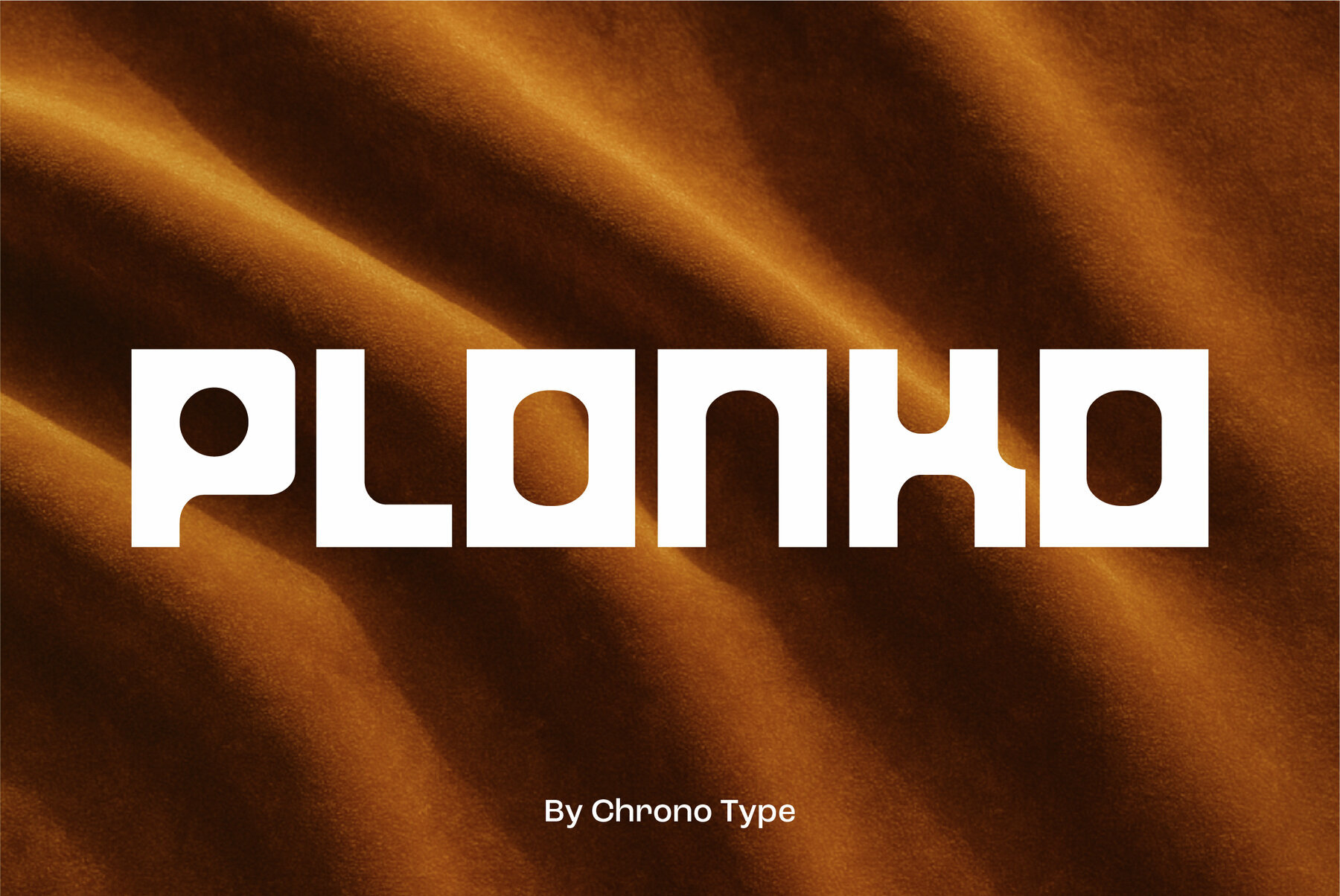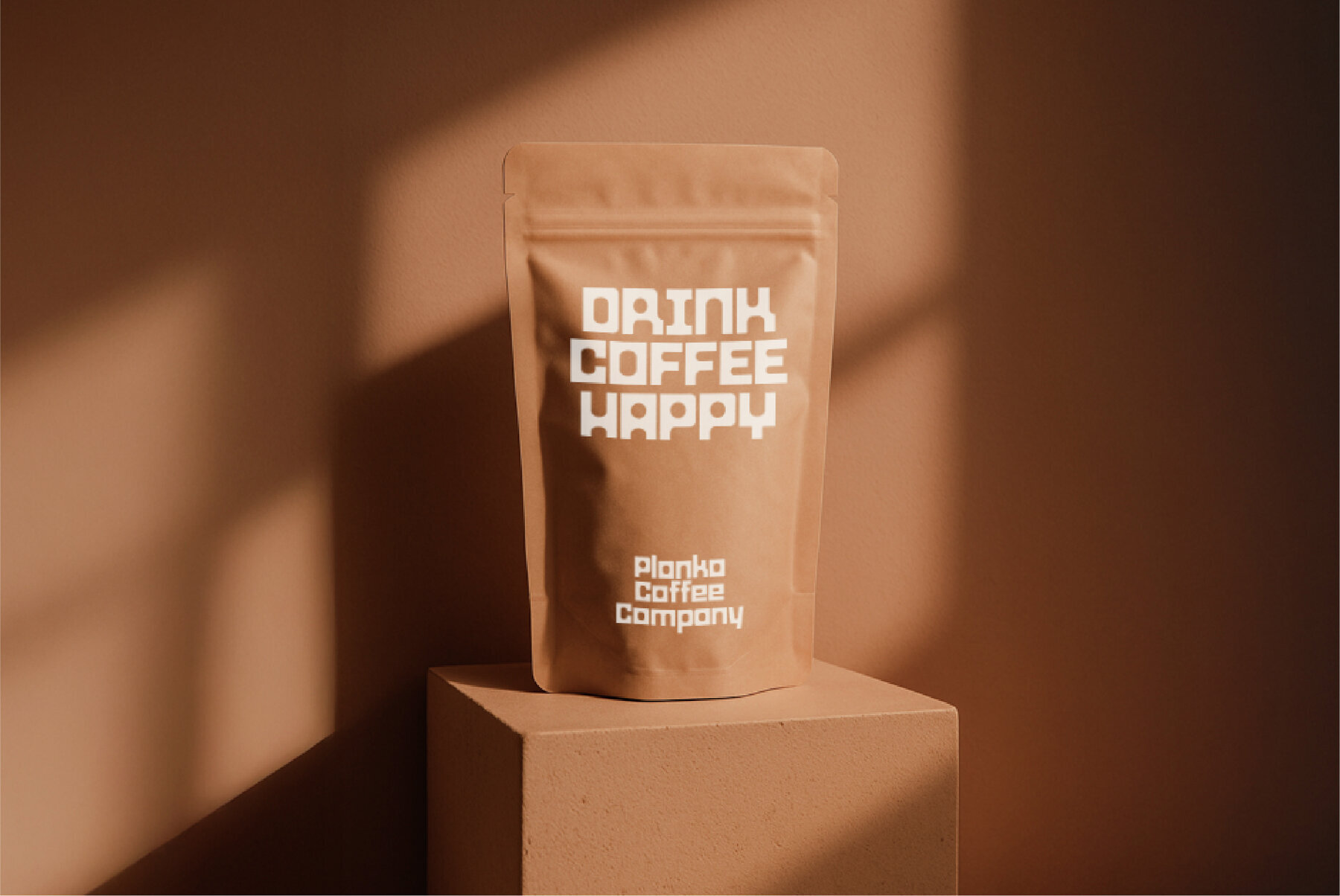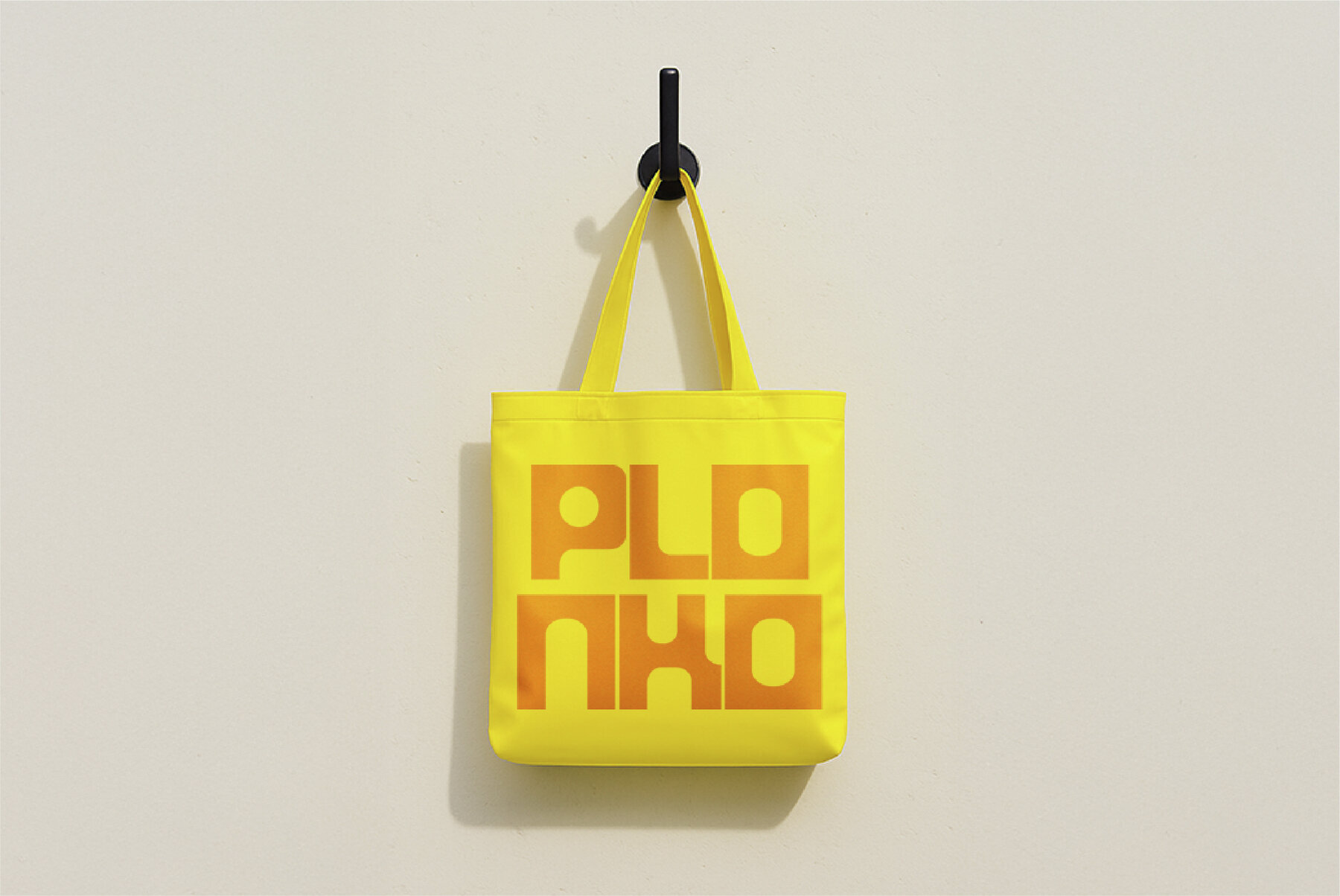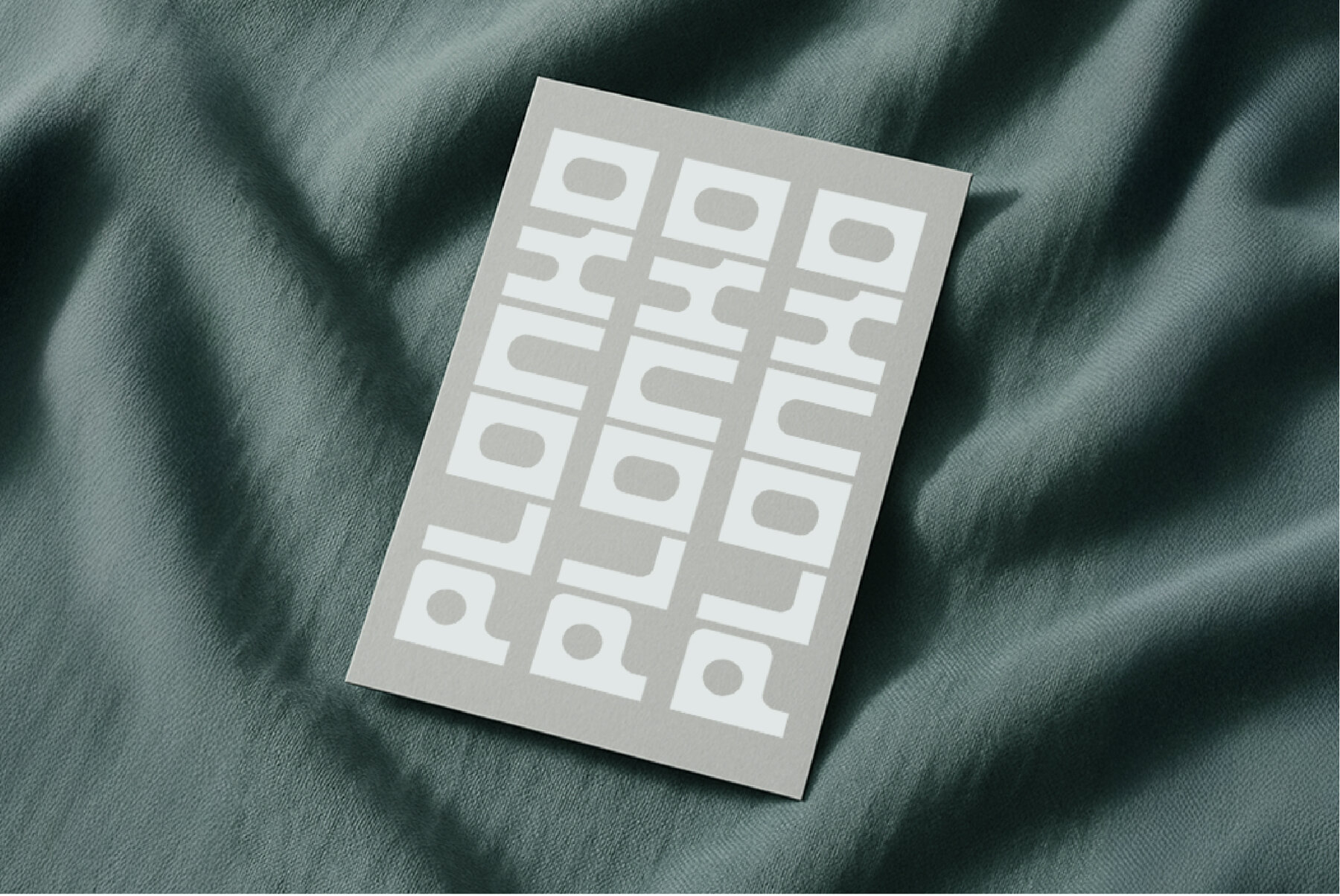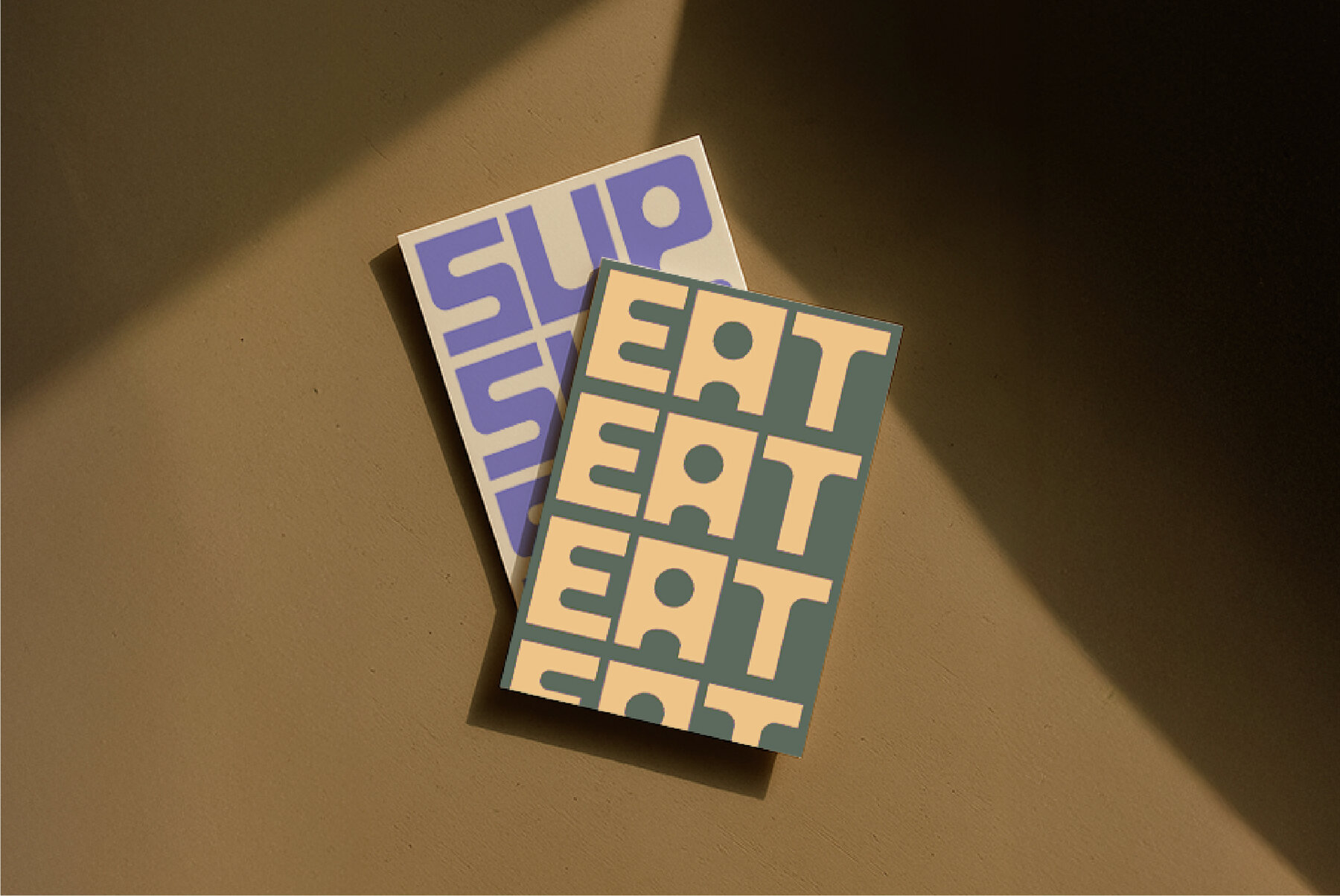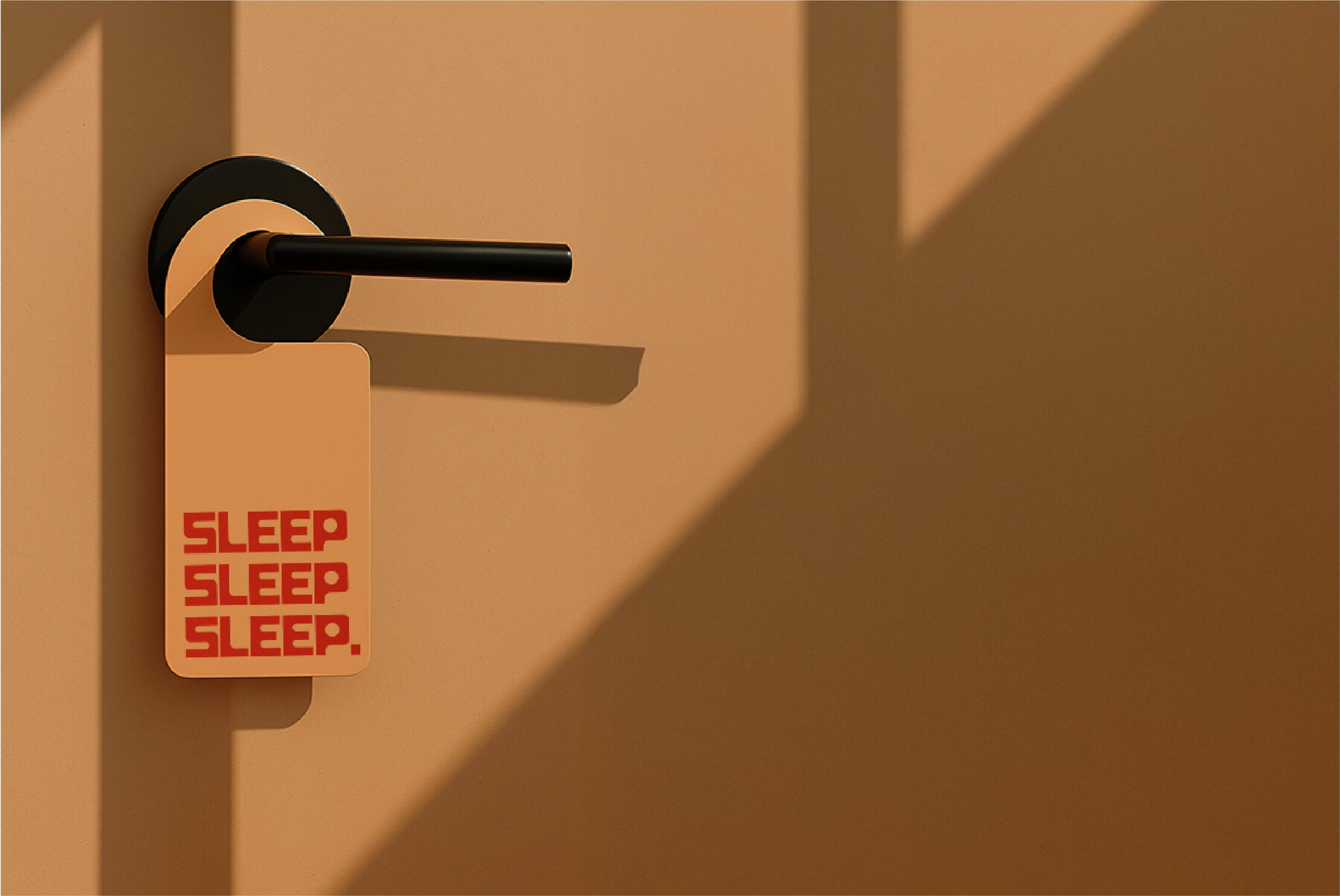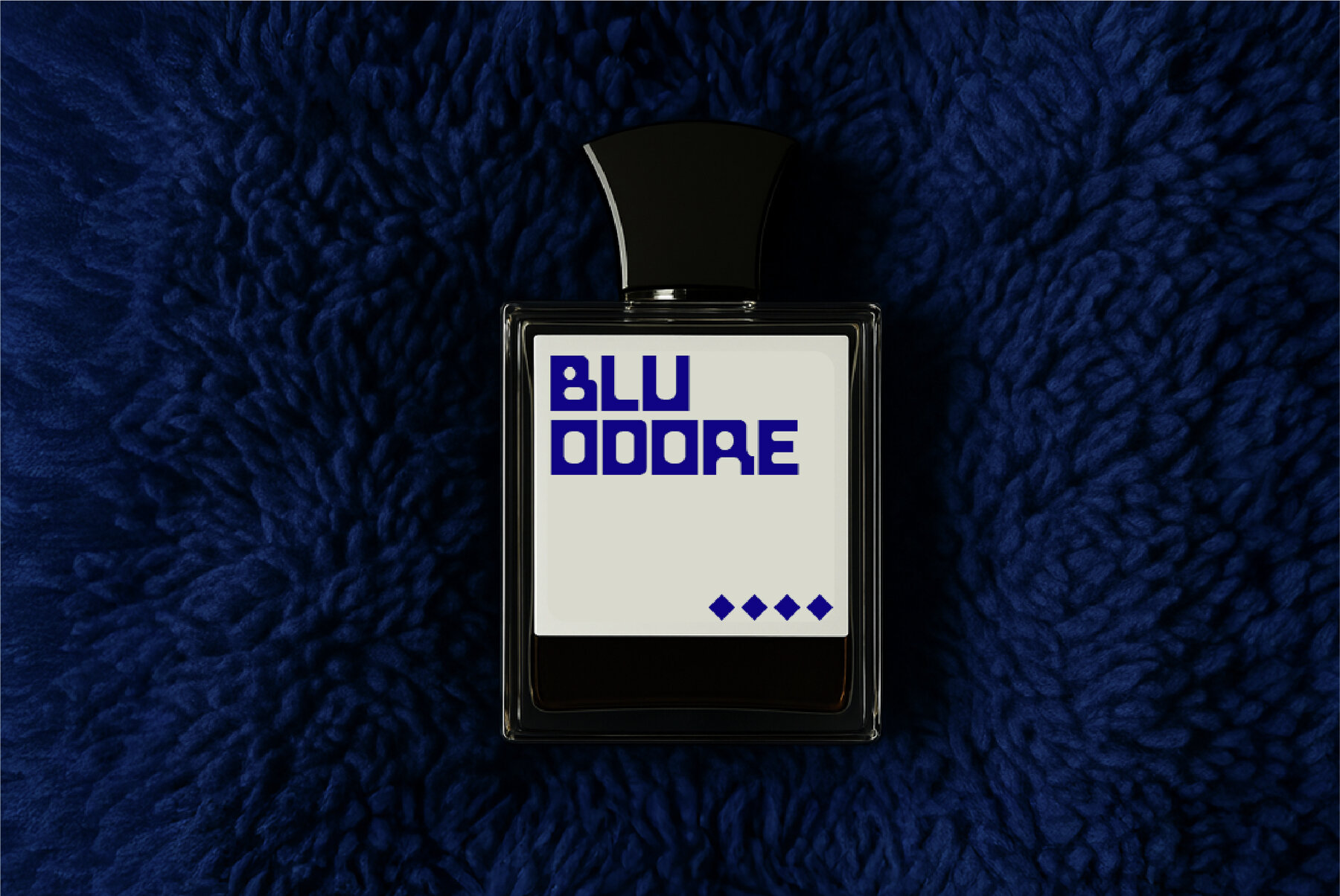
Plonko Font
Plonko Bold
Plonko is a typographical celebration of chunky forms and playful rhythm. Each letter interlocks like building blocks, producing words that stand strong yet brim with movement. Rounded counters meld with squared edges to deliver a quirky modularity—bold enough for posters and distinctive enough to brand an idea independently. Plonko is not just a typeface; it's a statement designed to demand attention and hold the spotlight, blending nostalgic charm with a modern edge.Plonko Typeface
Design Highlights